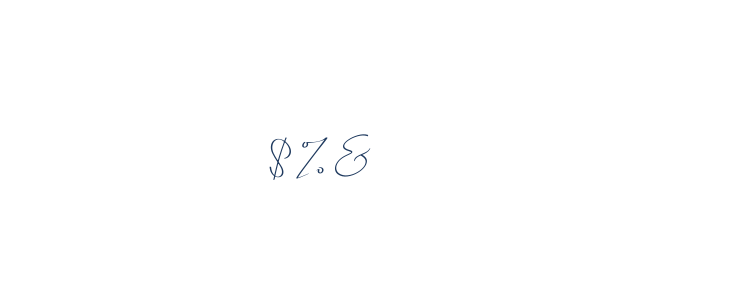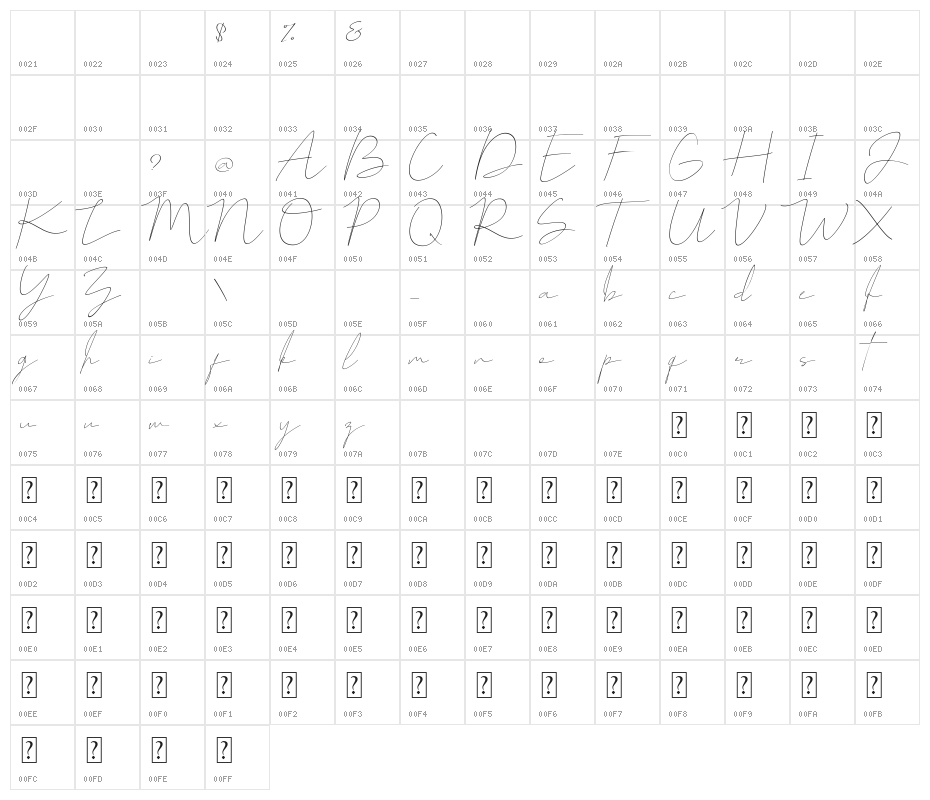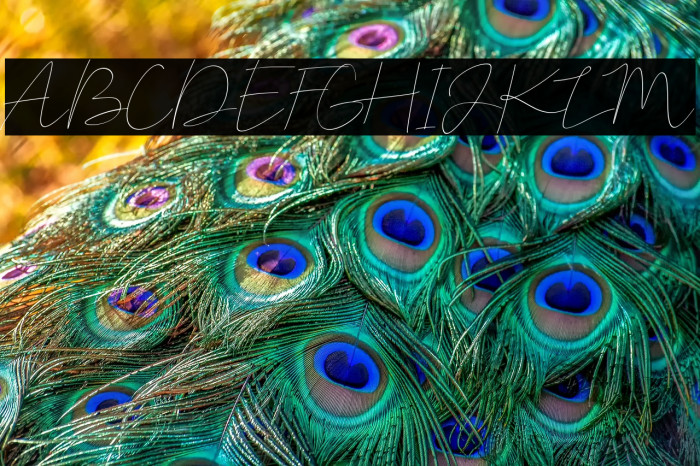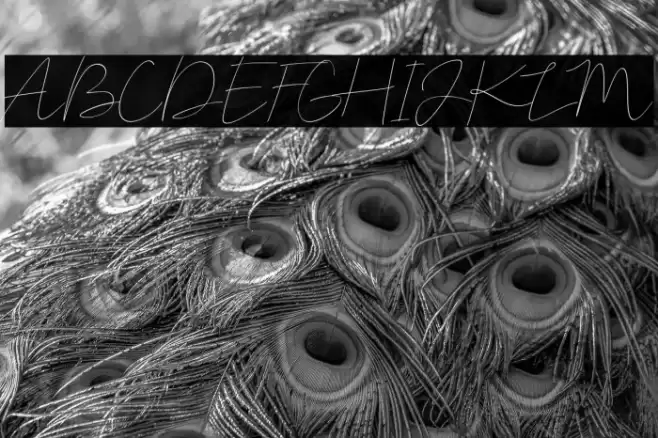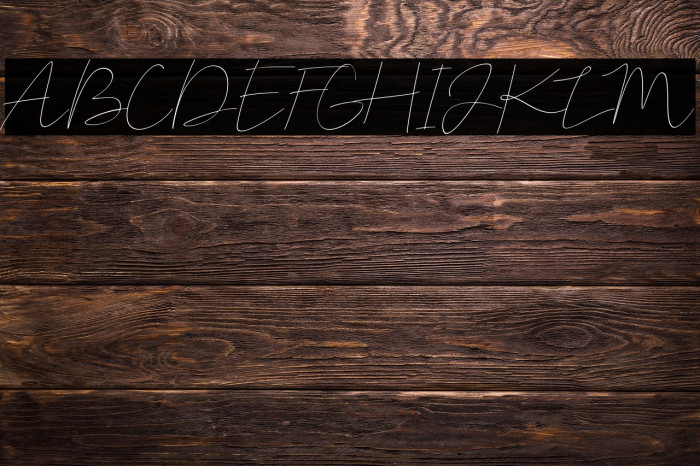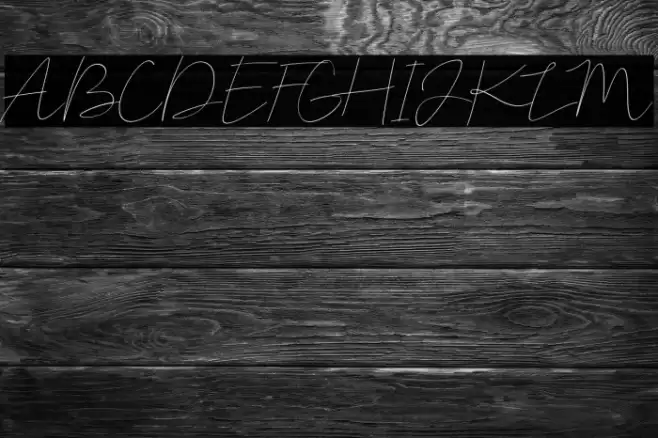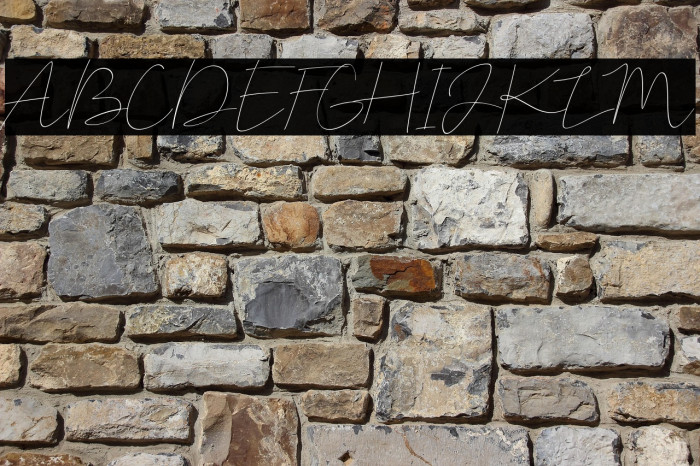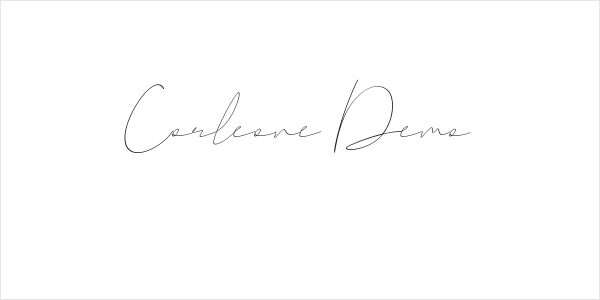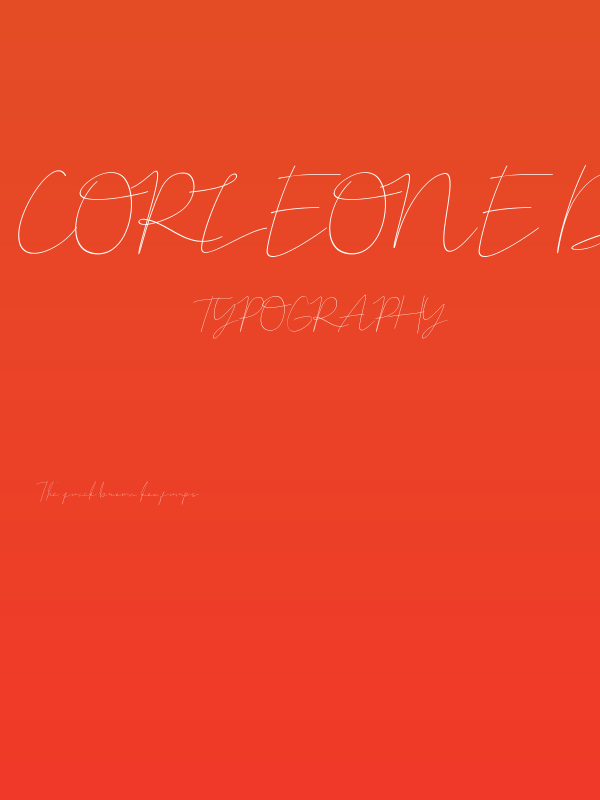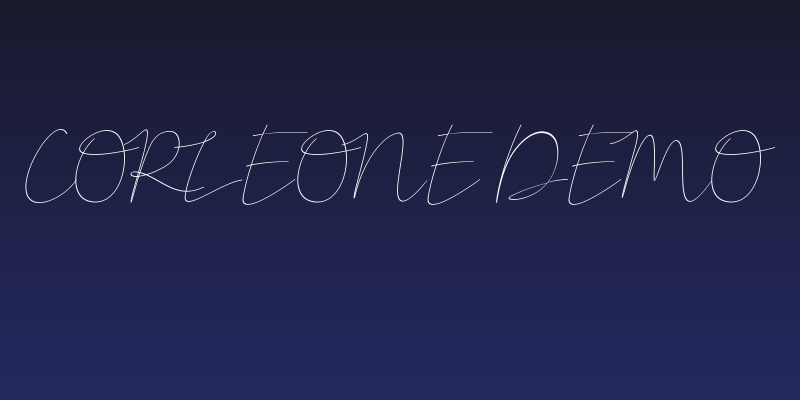
Corleone Demo Font
Corleone Demo Description
This font features a delicate and flowing script style, characterized by its thin, elegant lines and cursive letterforms. The uppercase letters are tall and slender, while the lowercase letters maintain a consistent flow, giving the font a graceful and sophisticated appearance. The numbers and special characters are designed with the same fluidity, ensuring a cohesive look throughout. The overall aesthetic is reminiscent of handwritten calligraphy, making it ideal for projects that require a personal and artistic touch.
Overall StyleElegant, Artistic
Use CaseLogos, Invitations, Decorative text
Proposed ProjectsIdeal for wedding invitations, personal branding, elegant stationery, and artistic projects that require a touch of sophistication.